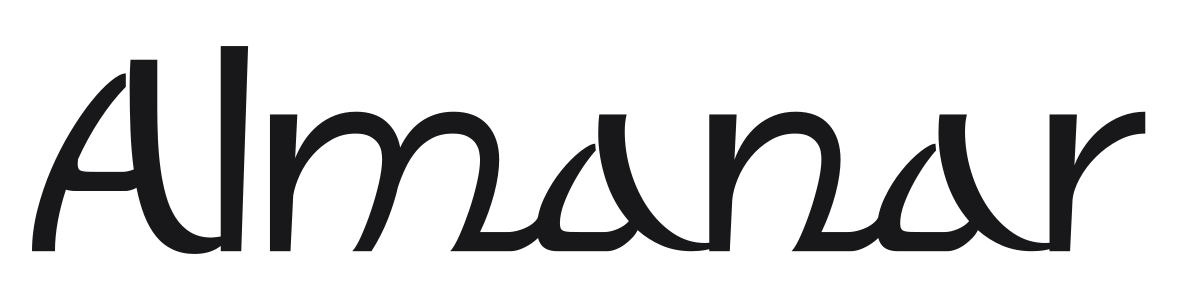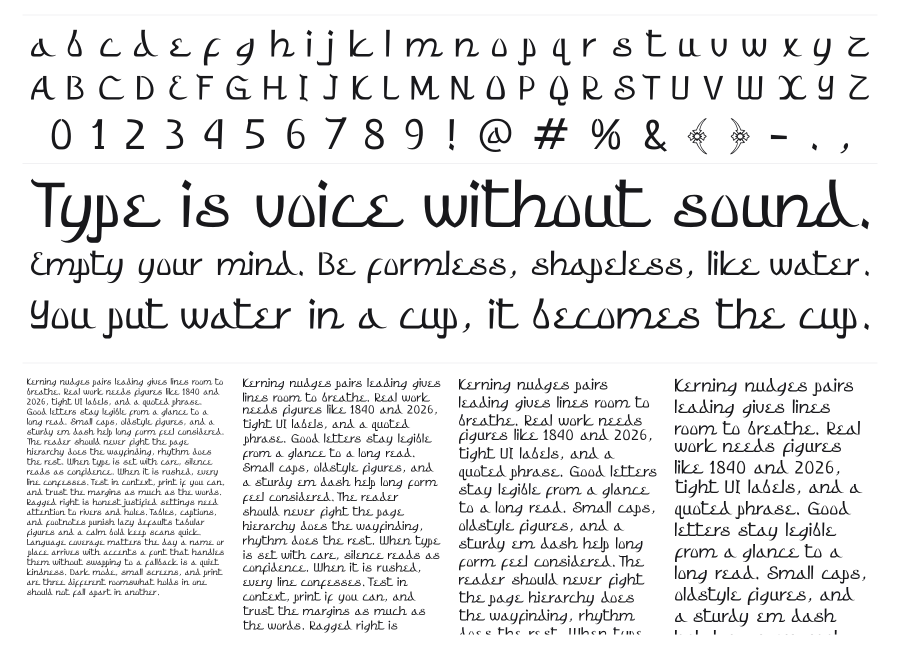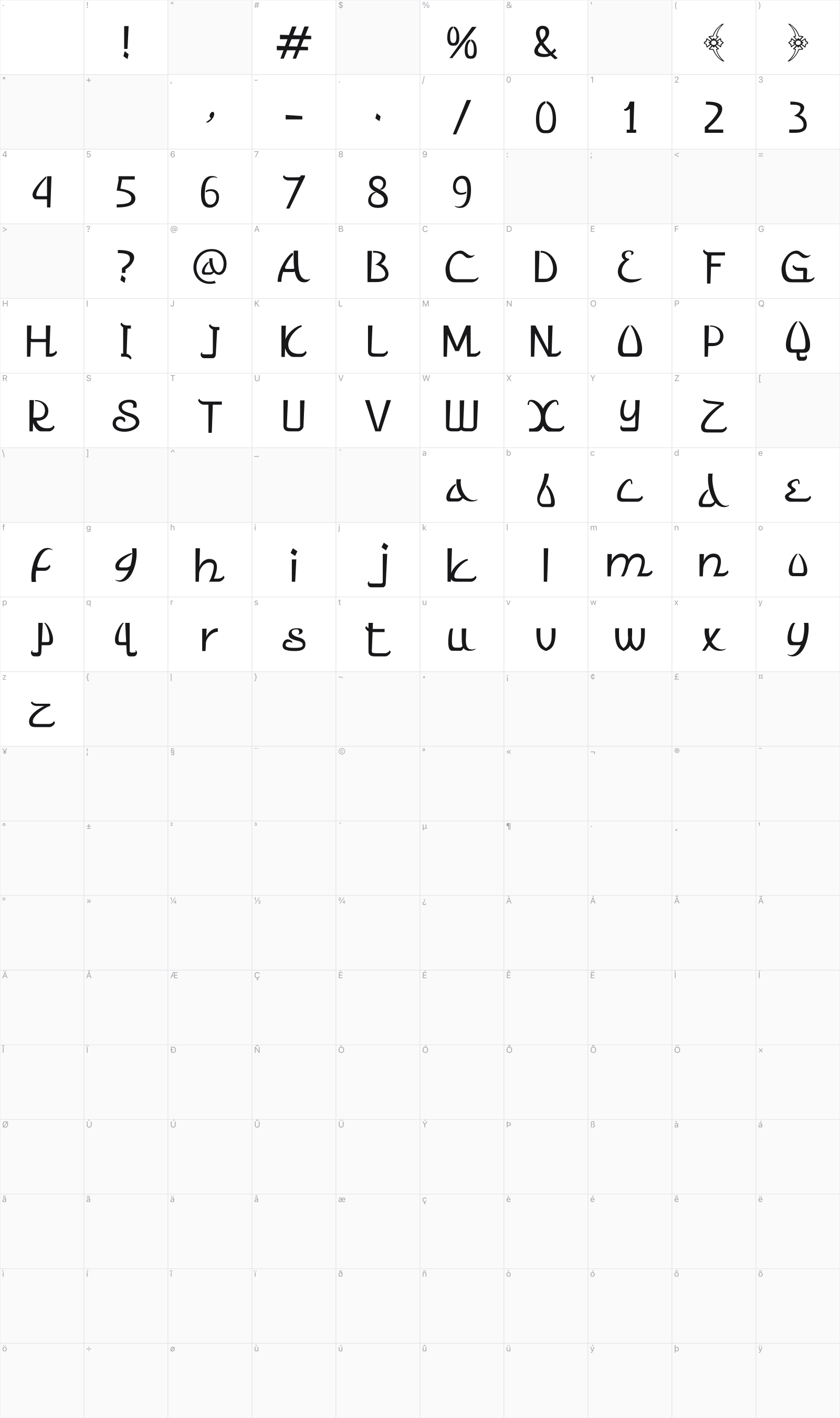
Almanar
Almanar is a casual Latin script with unmistakable Arabic calligraphic influence, blending sweeping horizontal strokes and hooked terminals drawn from the naskh tradition. The result is a fluid, cross-cultural hand that feels both informal and distinctly exotic. It works best at large sizes where its flowing connections and curling exit strokes can breathe.